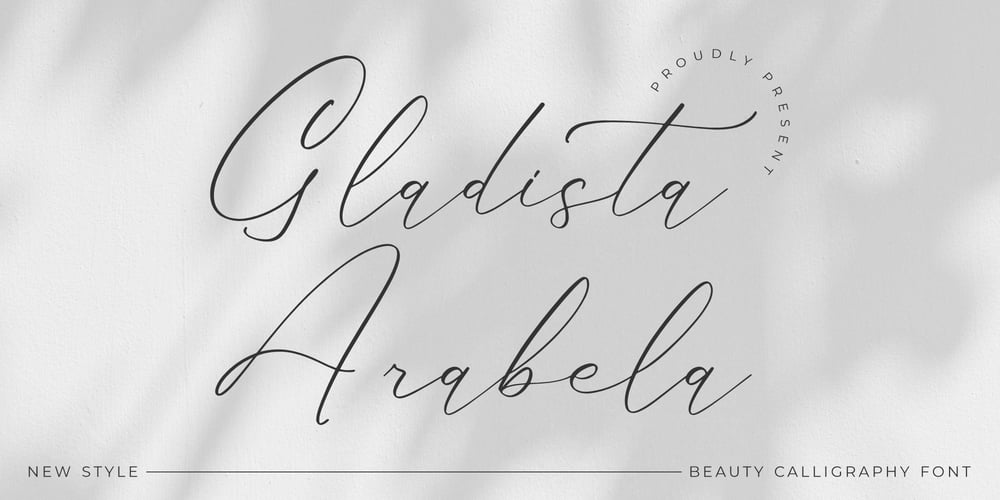
Gladista Arabela Font Family was designed by Heru Utama Putra and published by Letterena Studios. Gladista Arabela contains 2 styles and family package options. Proudly present Gladista Arabela – Beauty Calligraphy Font.A luxury script that has own unique style & modern look.This typeface is perfect for an elegant & luxury logo, book or movie title design, fashion brand, magazine, clothes, lettering, quotes, and so much more.